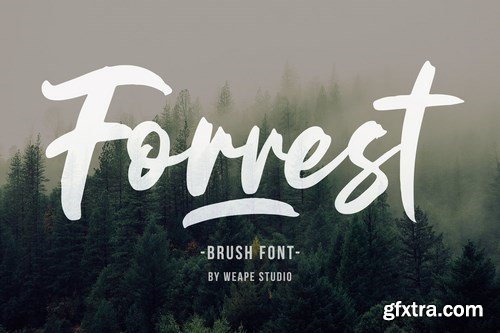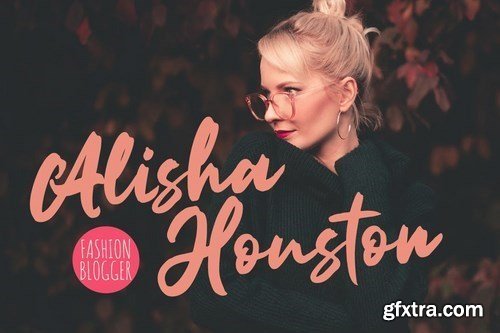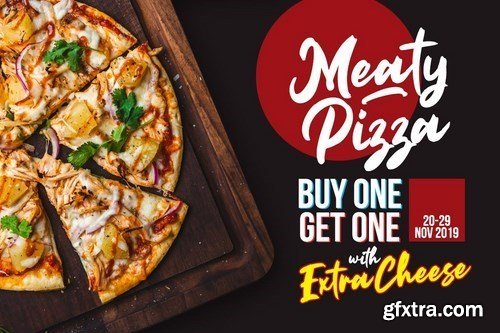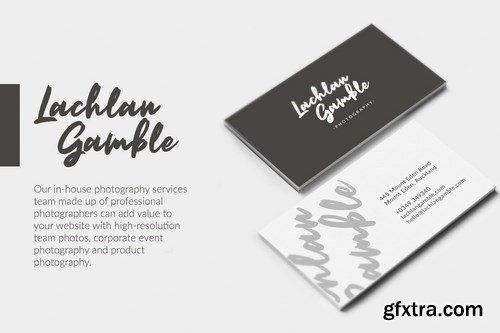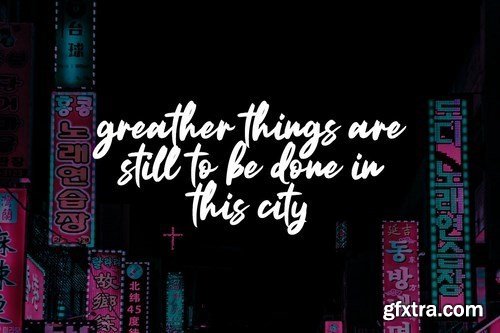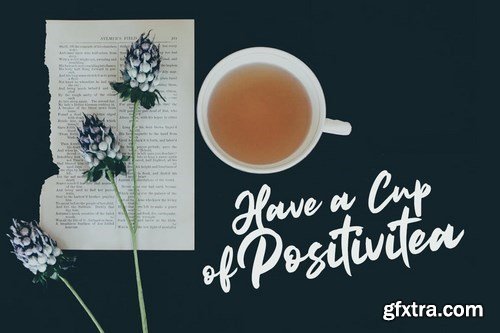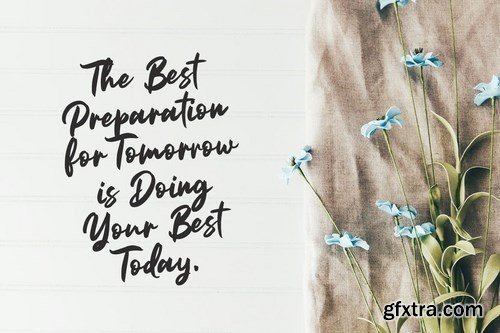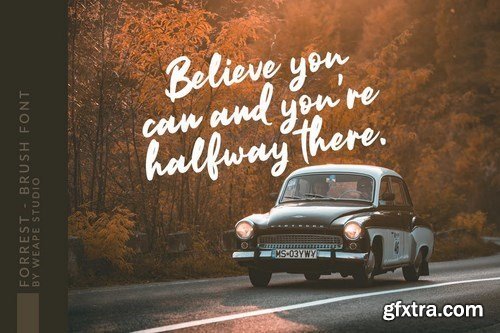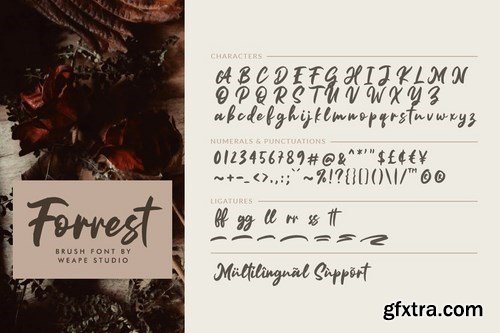
Introducing Forrest - Brush Font, script with unique strokes makes it beautiful and looks natural as written by hand.
Forrest is perfect for signature, branding, wedding, fashion, photography title, poster, social media, music album, book cover, packaging, handwritten quotes, greeting cards, and advertising.
All fonts containing upper & lowercase characters, numerals, punctuation, ligatures.